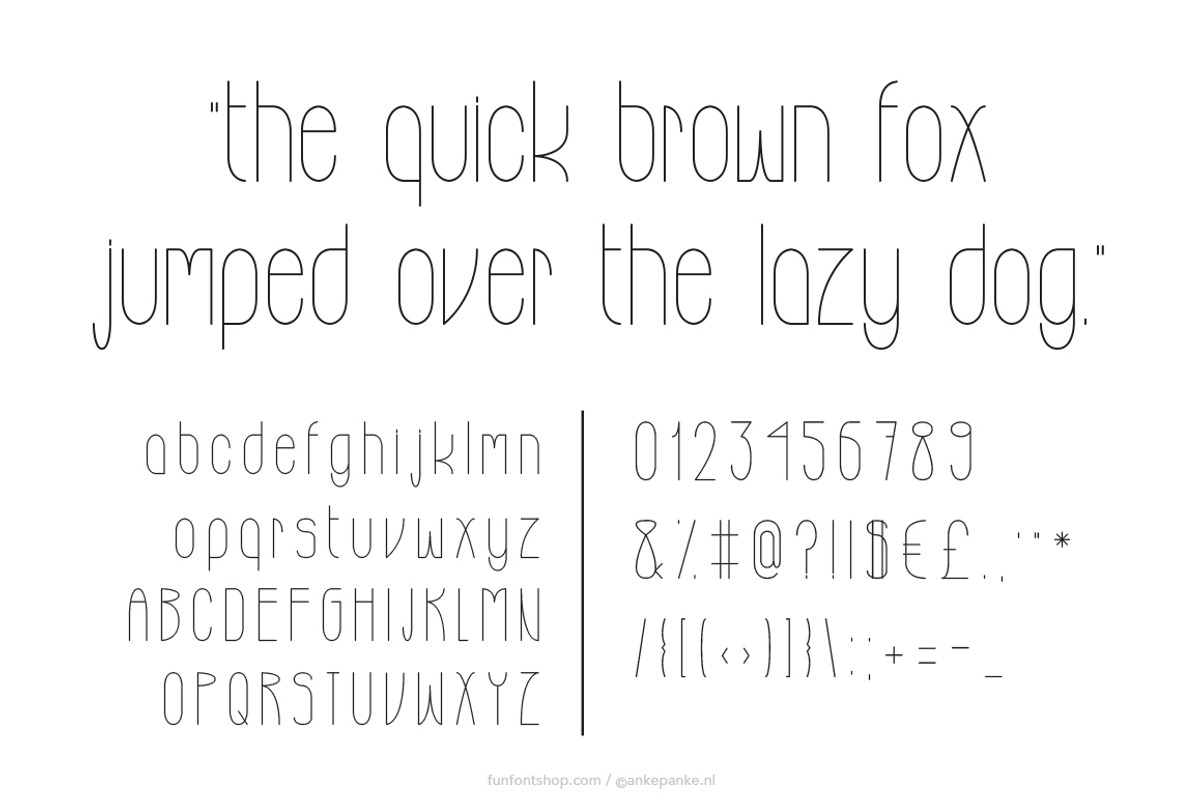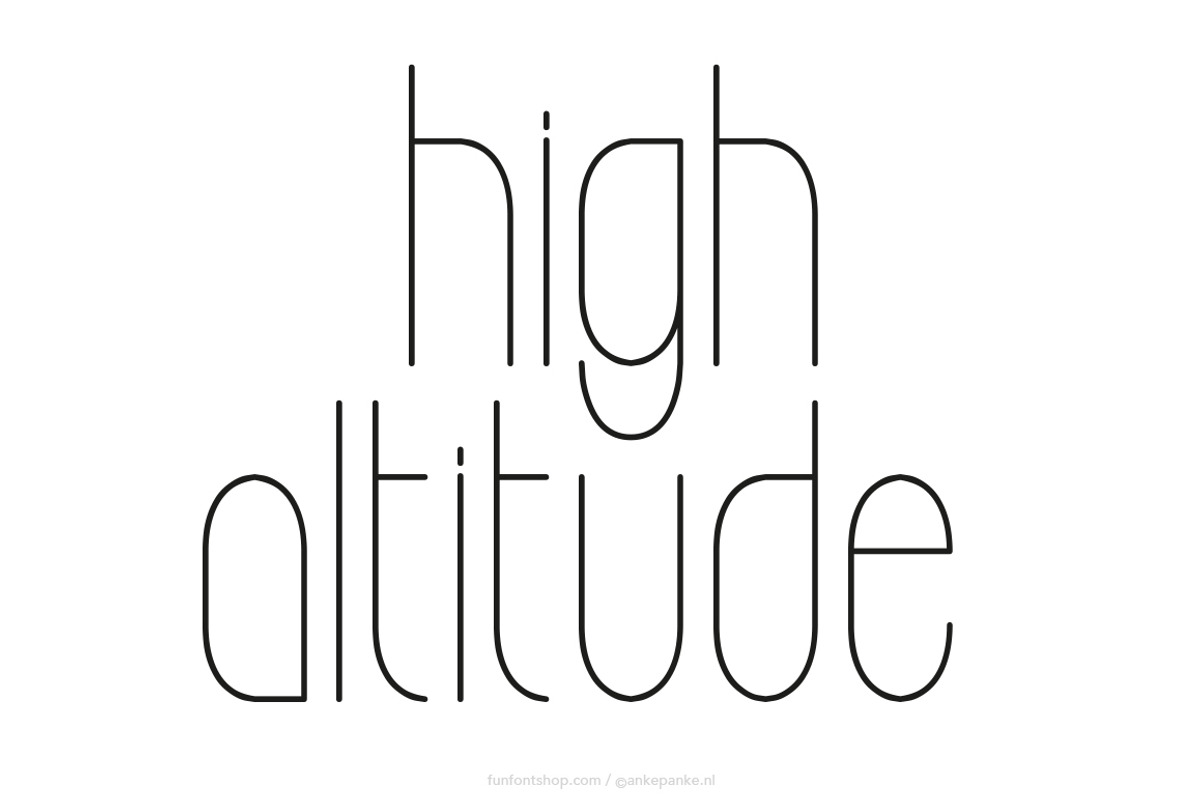
High Altitude Font
A really thin, but rounded elegant font, great for headlines and small texts. This font is created digitally, so big or small: it's always clean.
- Letters Uppercase, lowercase and numbers
- Punctuation !?#%&*±+=-_,.:;'"/|£€$@({[]})